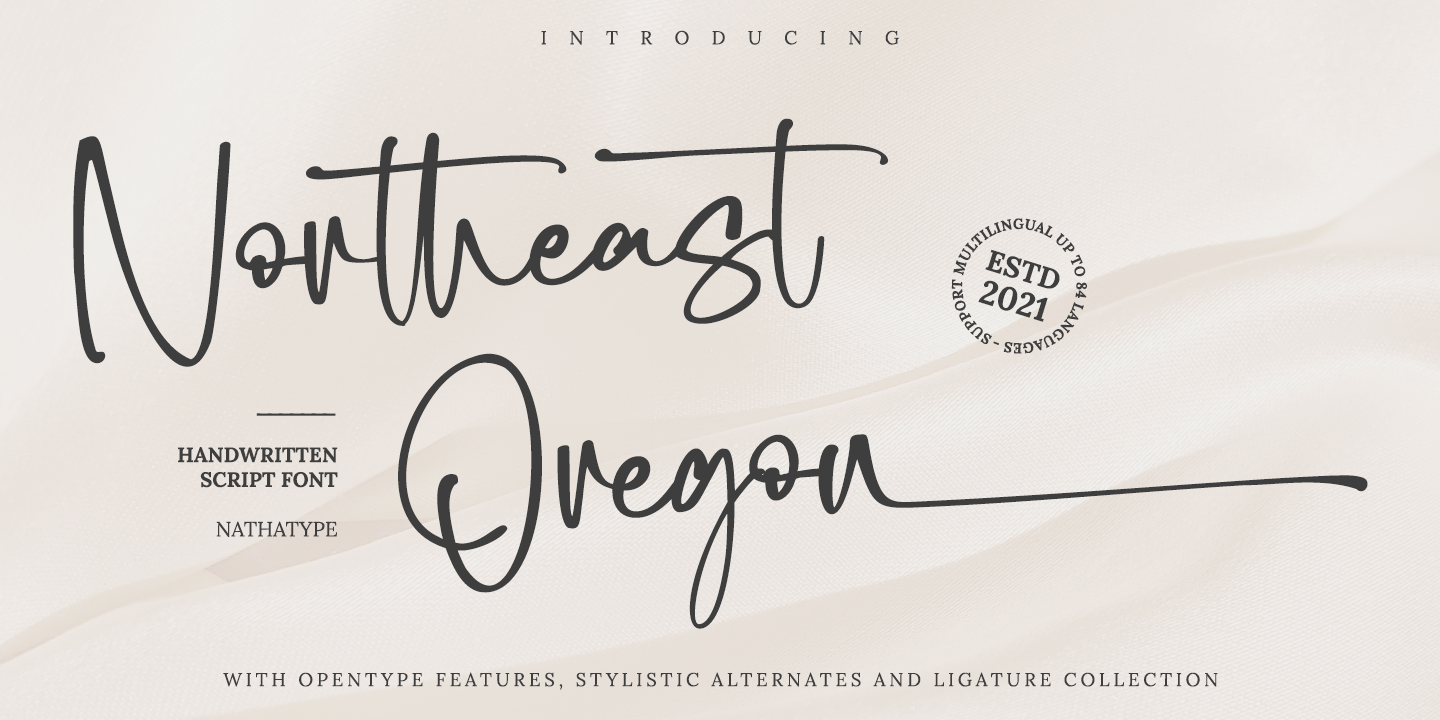
Northeast Oregon Font excels in Pacific Northwest tourism branding, outdoor adventure company materials, regional brewery signage, mountain lodge communications, wilderness guide publications, Oregon trail heritage sites, artisanal coffee roastery packaging, and rugged outdoor gear marketing. This distinctive typeface brings Pacific Northwest authenticity and Oregon wilderness charm to any project requiring natural, adventurous typography with genuine regional character and outdoor exploration credibility.
What makes Northeast Oregon Font exciting is its perfect embodiment of Pacific Northwest wilderness and Oregon's natural beauty that captures the rugged majesty of Cascade Mountains and the pioneering spirit of Oregon Trail settlers who carved paths through pristine wilderness landscapes. The font features sturdy letterforms with natural character and regional proportions that mirror the enduring strength of old-growth forests and the authentic spirit of Pacific Northwest outdoor culture while maintaining excellent readability for tourism and outdoor applications. Its regional character and wilderness authenticity make it ideal for Oregon businesses, outdoor brands, and Pacific Northwest organizations celebrating natural beauty and outdoor adventure. The typeface's Oregon appeal ensures instant recognition of regional quality and wilderness authenticity.
The Northeast Oregon Font family includes Light, Regular, Bold, Trail, and Wilderness variants, each maintaining the signature Pacific Northwest character while offering different expressions of Oregon wilderness and regional outdoor sophistication. The family features outdoor symbols, regional elements, and wilderness decorations that enhance its versatility for Oregon tourism and Pacific Northwest outdoor branding projects. These variants provide comprehensive tools for creating authentic regional typography with genuine Oregon character and wilderness appeal.
Whether you're designing for Oregon tourism, outdoor adventure companies, or Pacific Northwest regional brands, Northeast Oregon Font Free Download delivers the wilderness authenticity that defines genuine Oregon typography. Its combination of regional character and outdoor adventure makes it perfect for communicating Pacific Northwest beauty, Oregon wilderness, and outdoor exploration with authentic Northeast Oregon Font Free Download spirit and unforgettable Oregon presence.